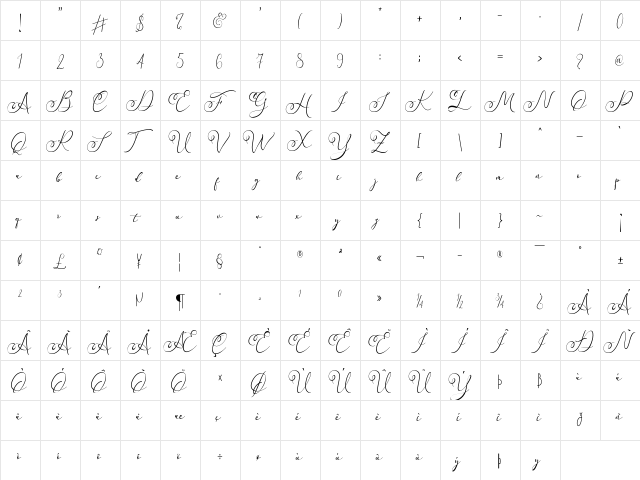
Faradilla Regular
| Designer | Aldedesign 2018 |
Design Context for Faradilla Typeface
Faradilla is a composed and adaptable typeface that performs quietly and consistently across a wide range of design contexts.